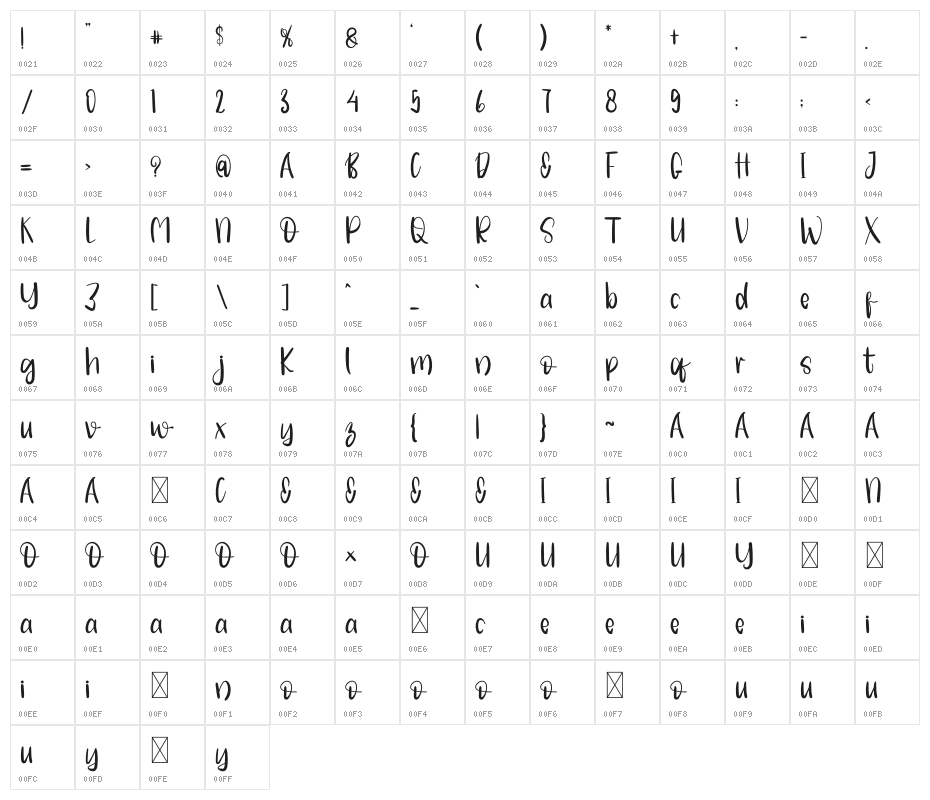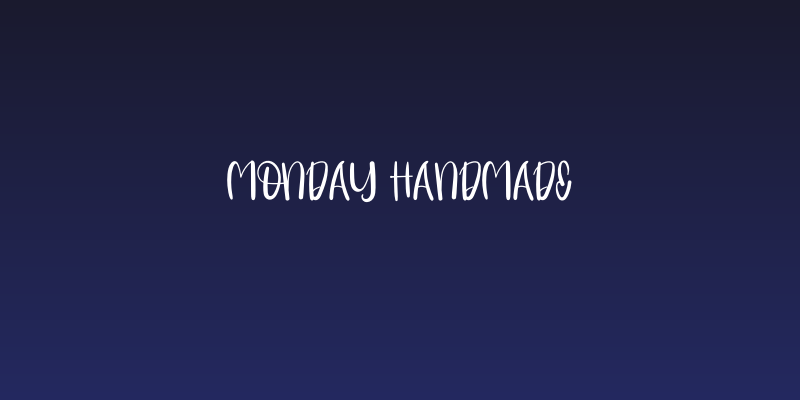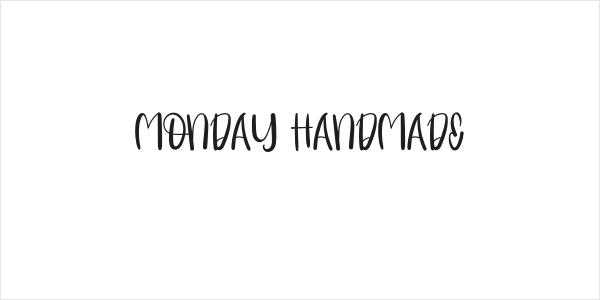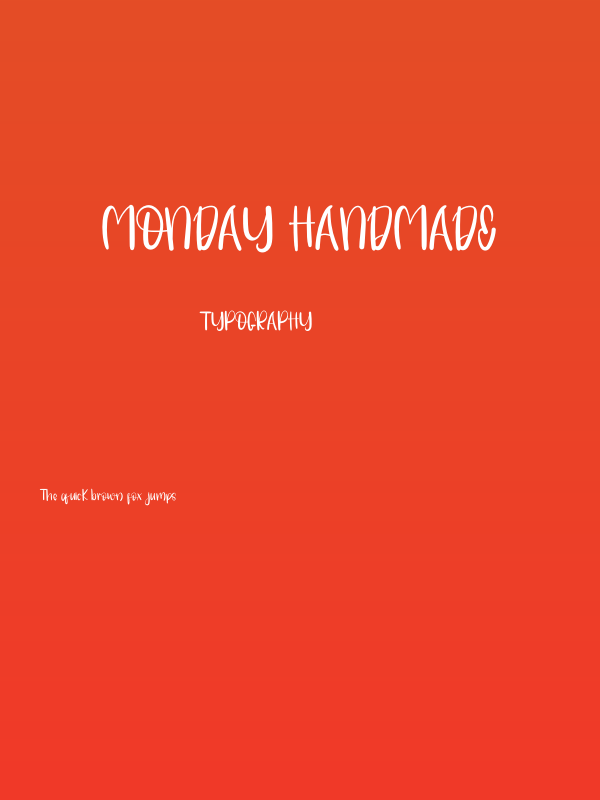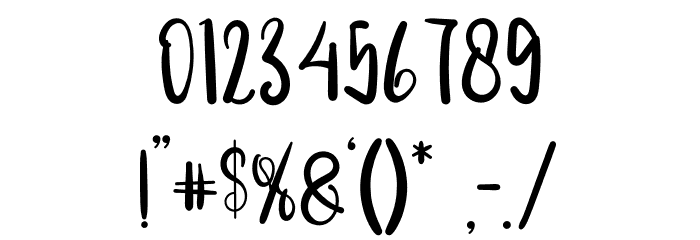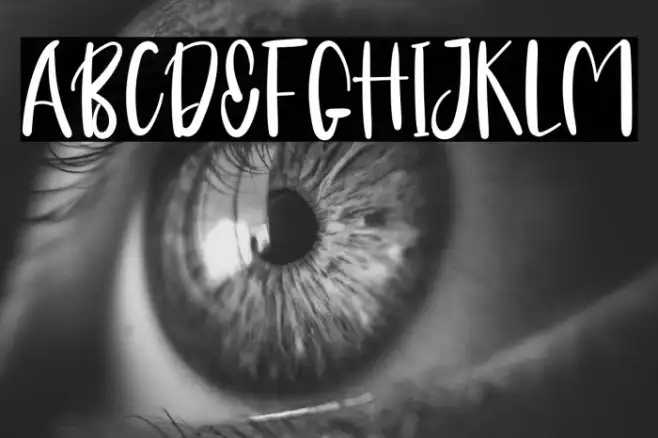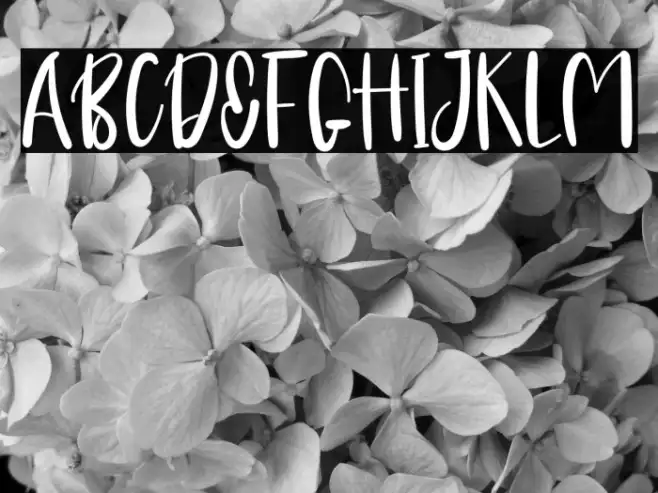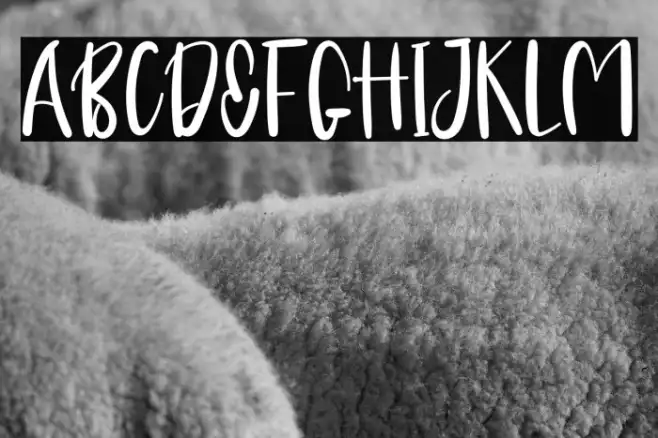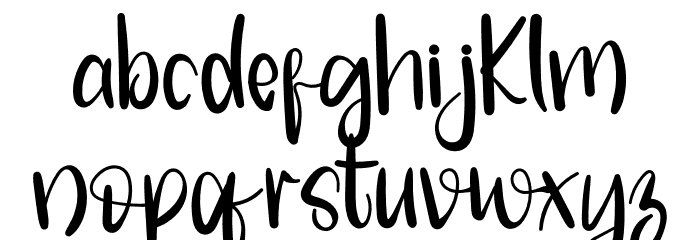
MONDAY HANDMADE Font
MONDAY HANDMADE Description
This font features a playful and casual handwritten style, characterized by its flowing and slightly irregular letterforms. The uppercase and lowercase letters exhibit a consistent stroke width, creating a harmonious and approachable appearance. The numerals and special characters maintain the same whimsical aesthetic, making the font versatile for various creative projects. Its informal and friendly vibe is perfect for designs that aim to convey warmth and personality.